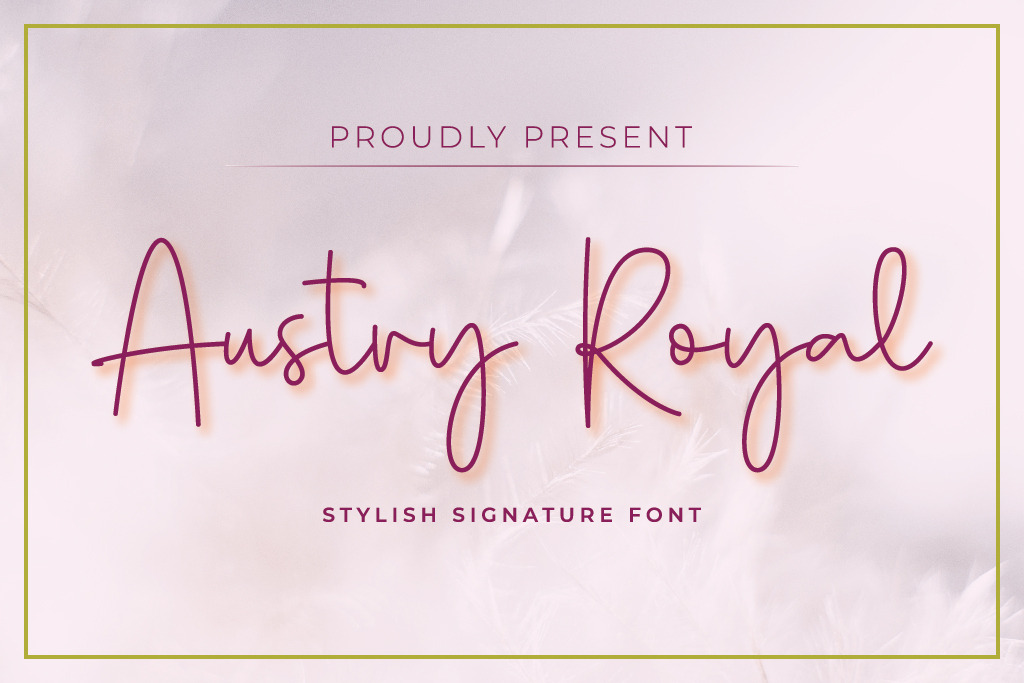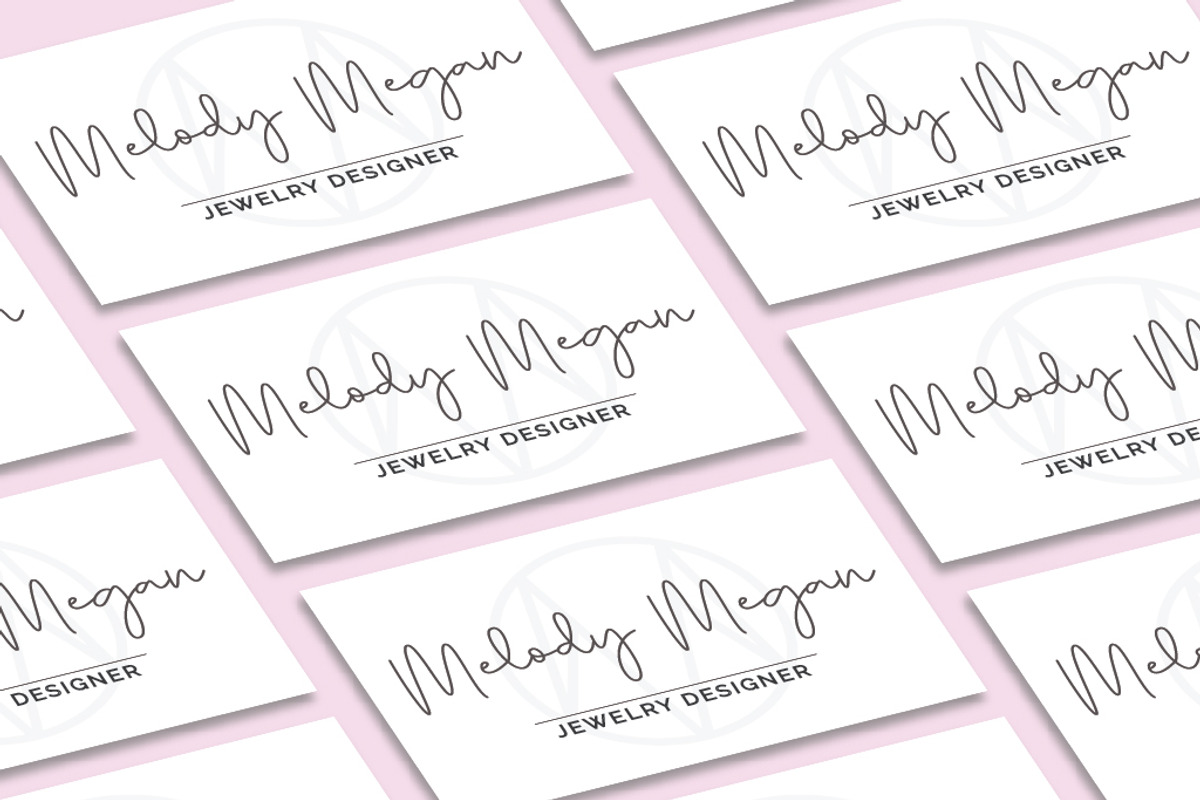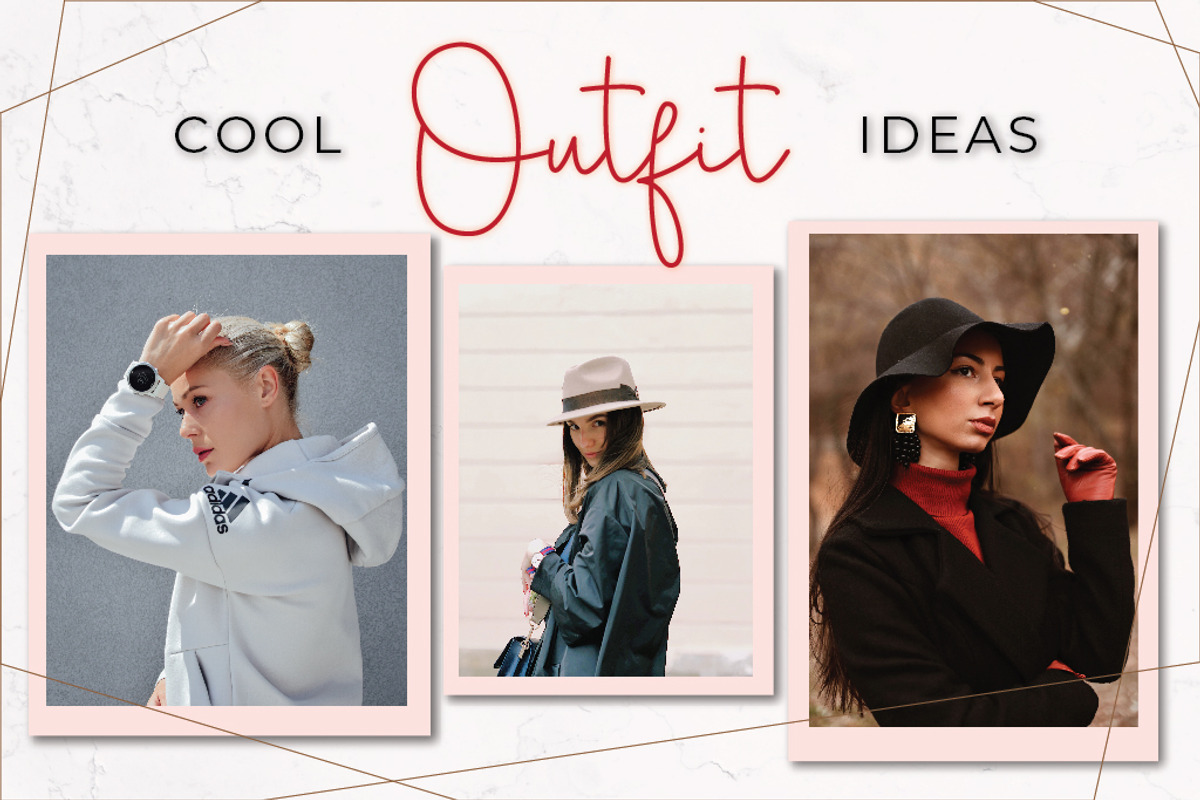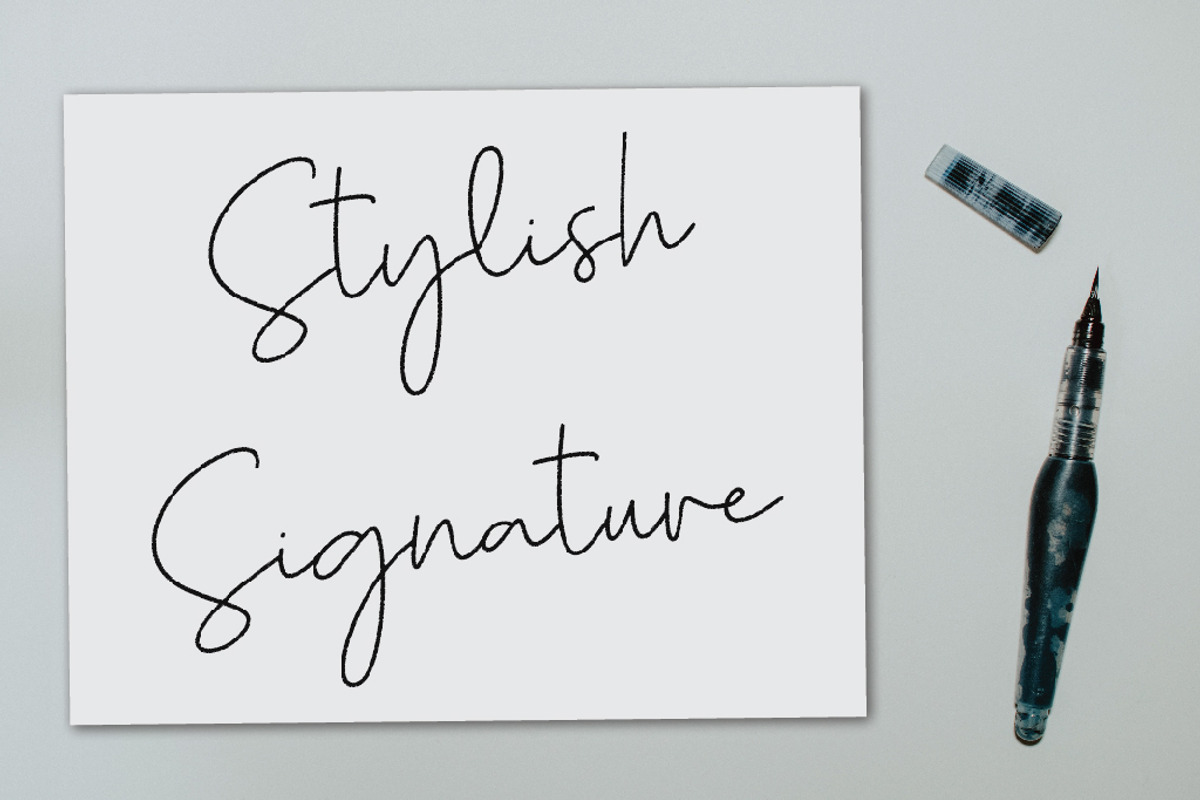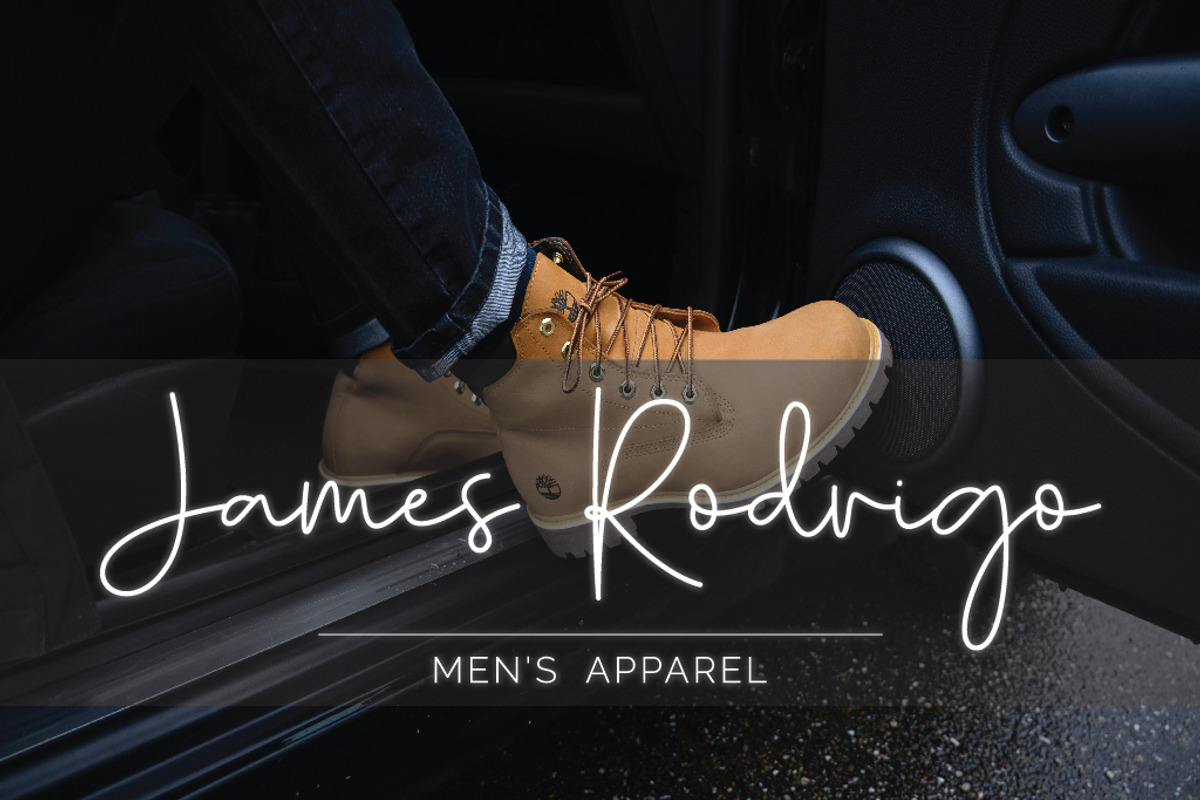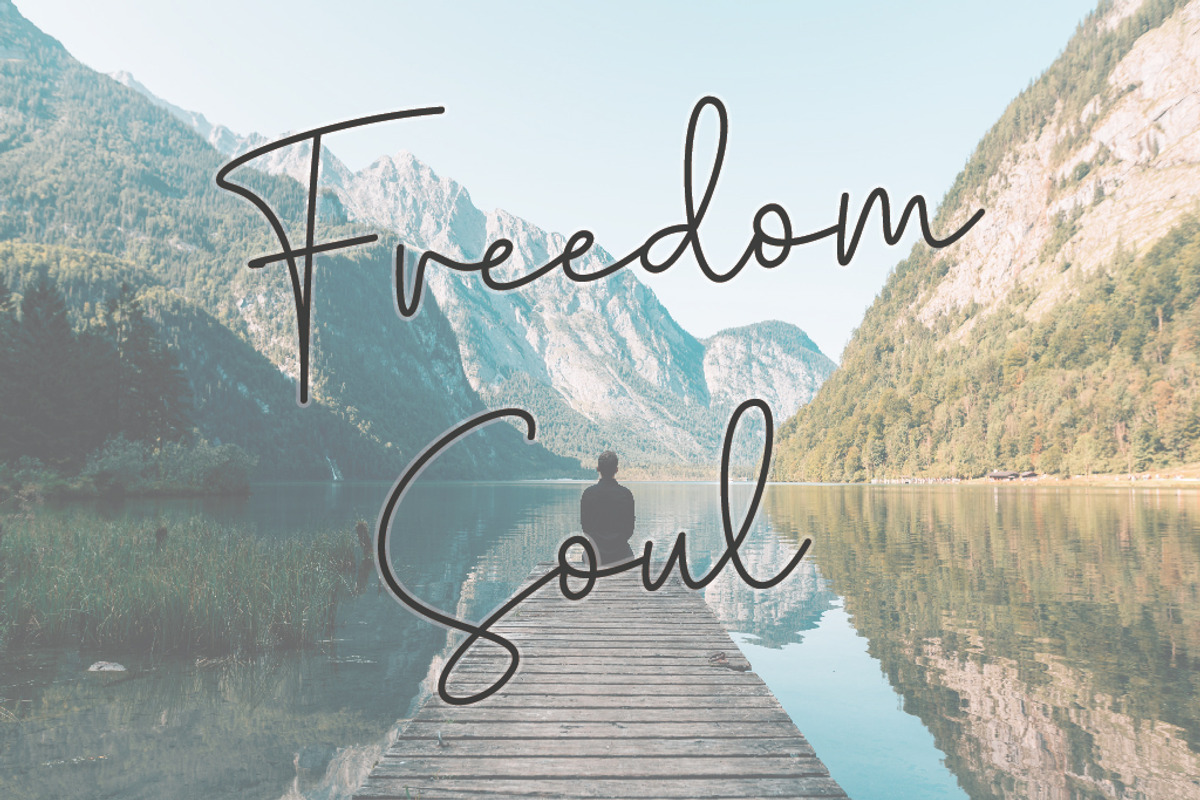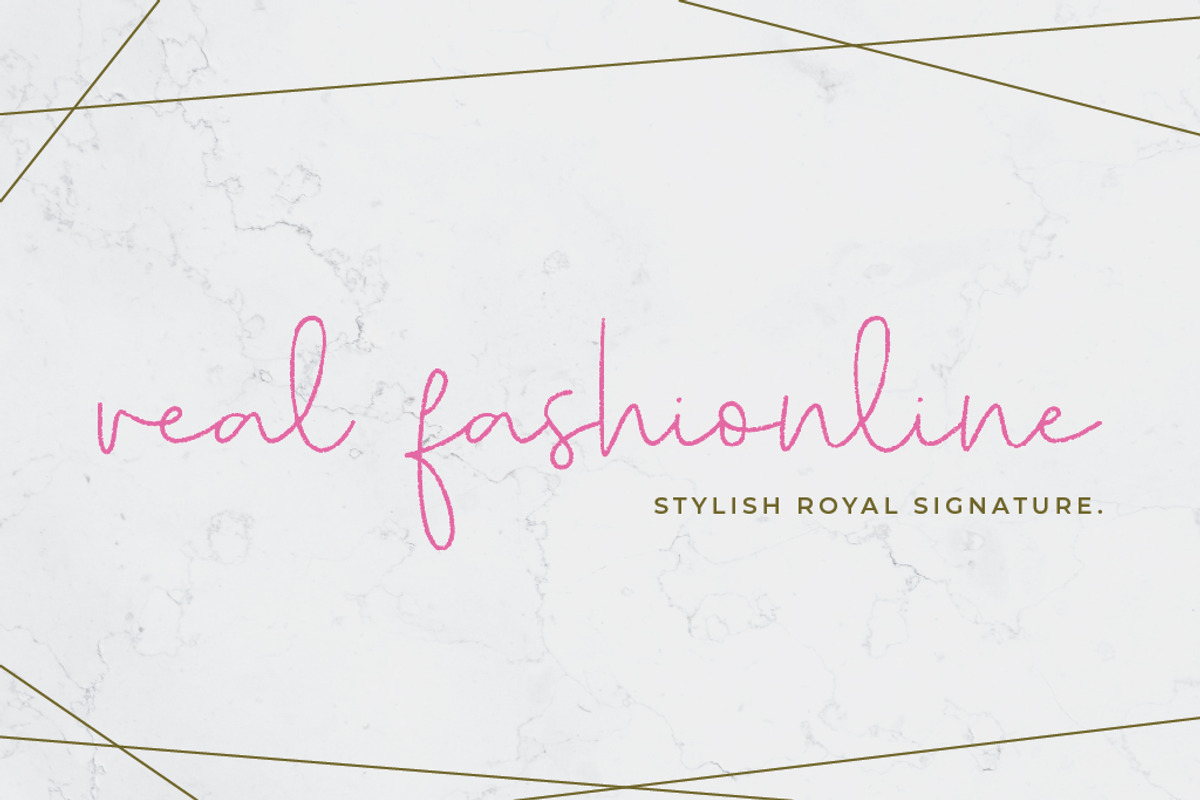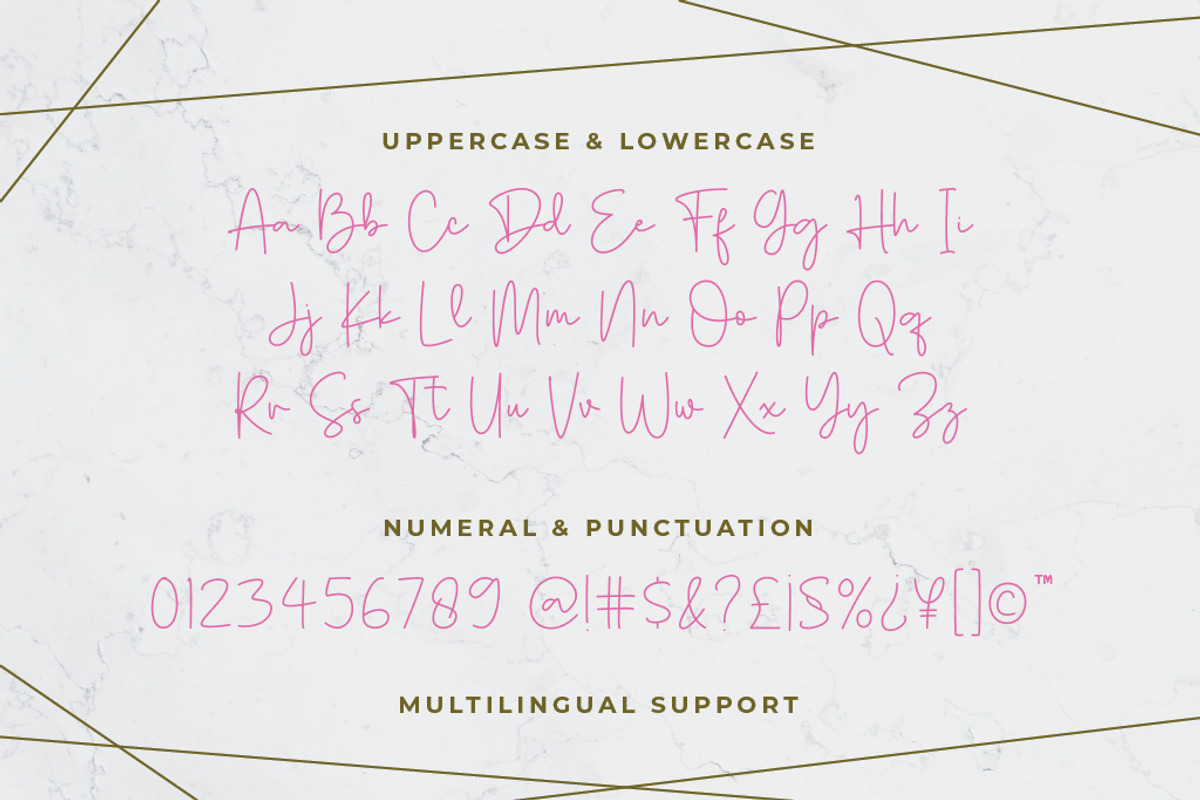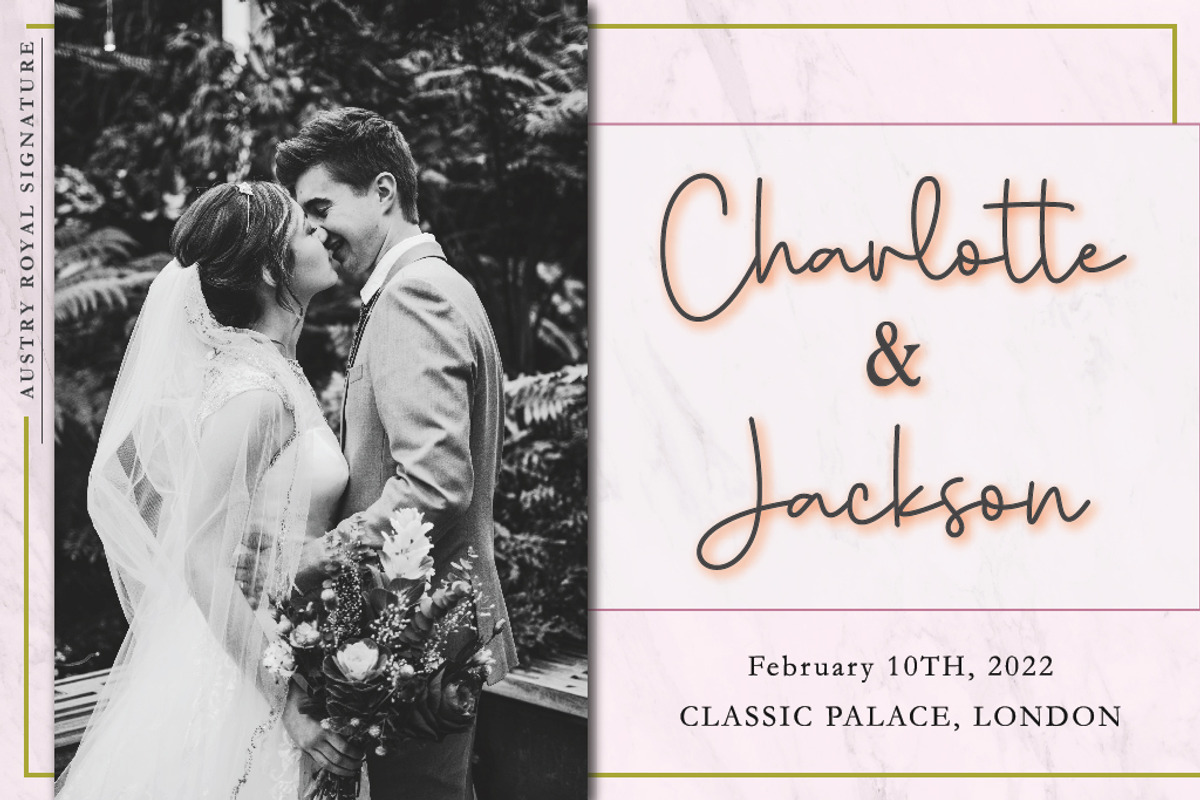
Austry Royal Font
Austry Royal is a simple, fashionable signature font with a touch of elegance. Austry Royal matches any design by adding a luxurious and minimalist feel. Austry Royal is compatible with many tools, such as Illustrator and Photoshop and supports multilingual features. Its elegant strokes make it perfect for product design, such as branding for a cake shop, jewelry, clothes, restaurant, print media, or anything else to communicate your brand.